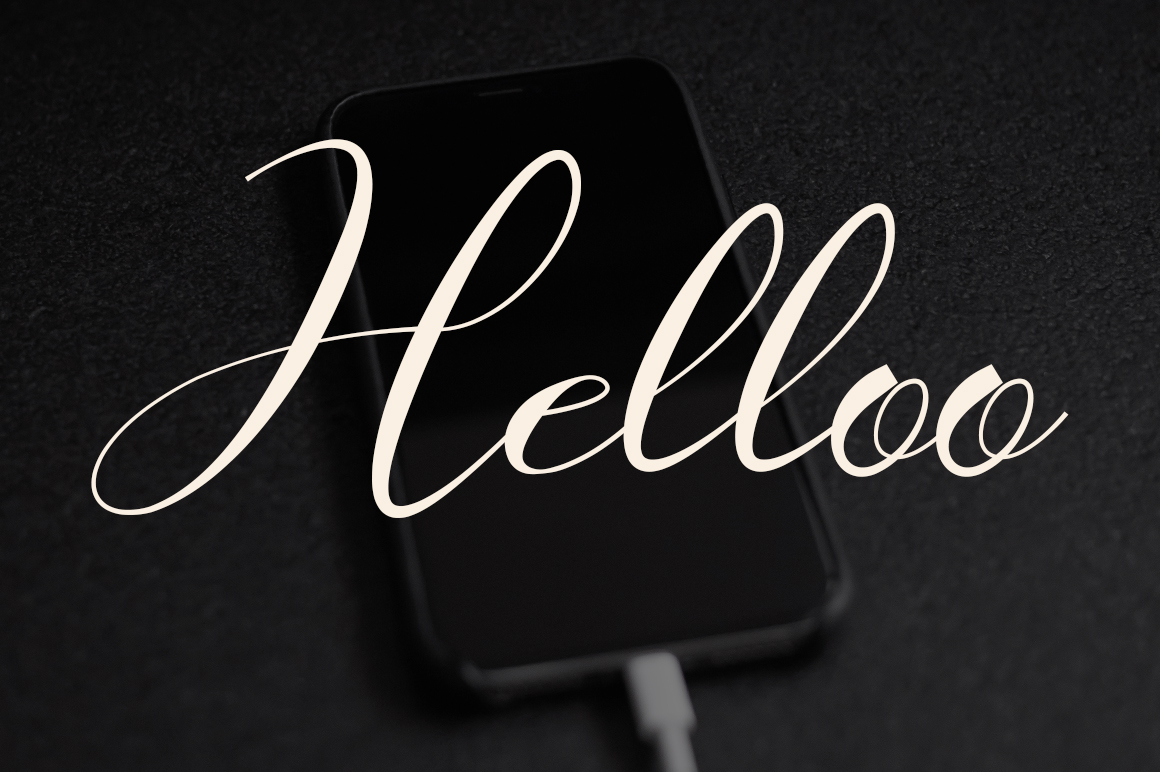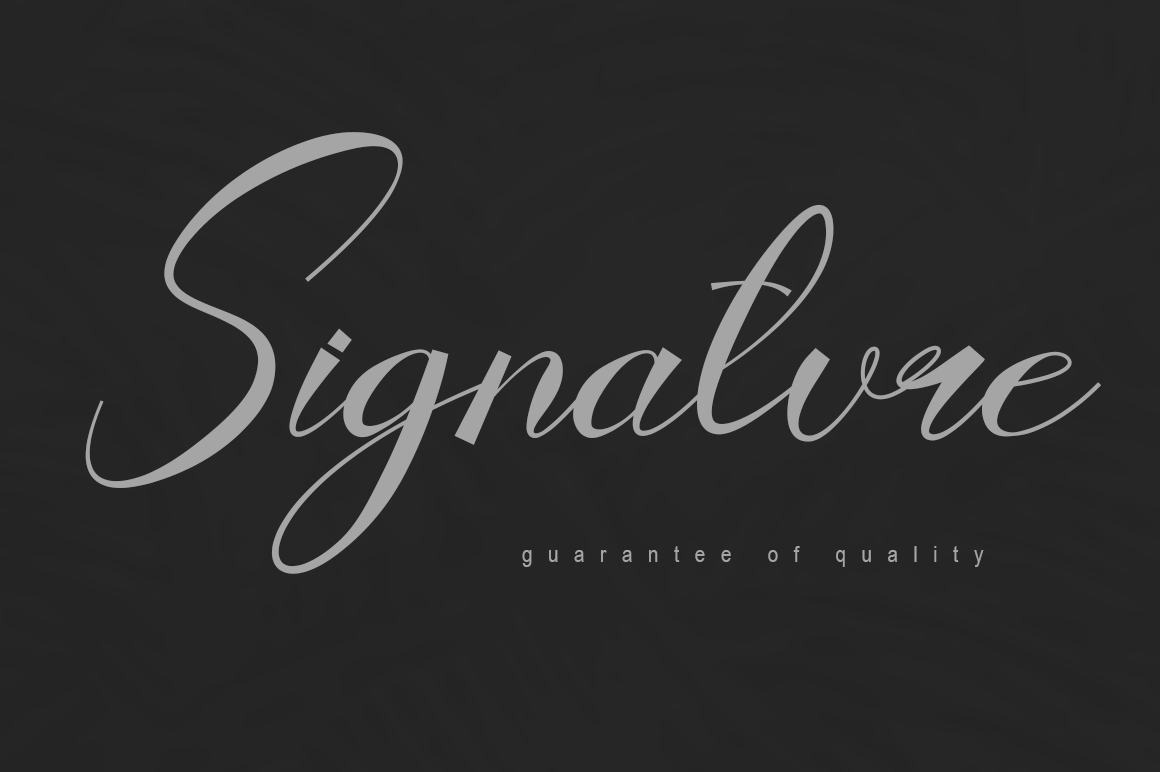
Garbens Script Font
This is a luxurious and natural-looking script font, absolutely perfect for your most creative projects! It looks stylish and authentic, and it has the right vibe for adding a personal note to anything.